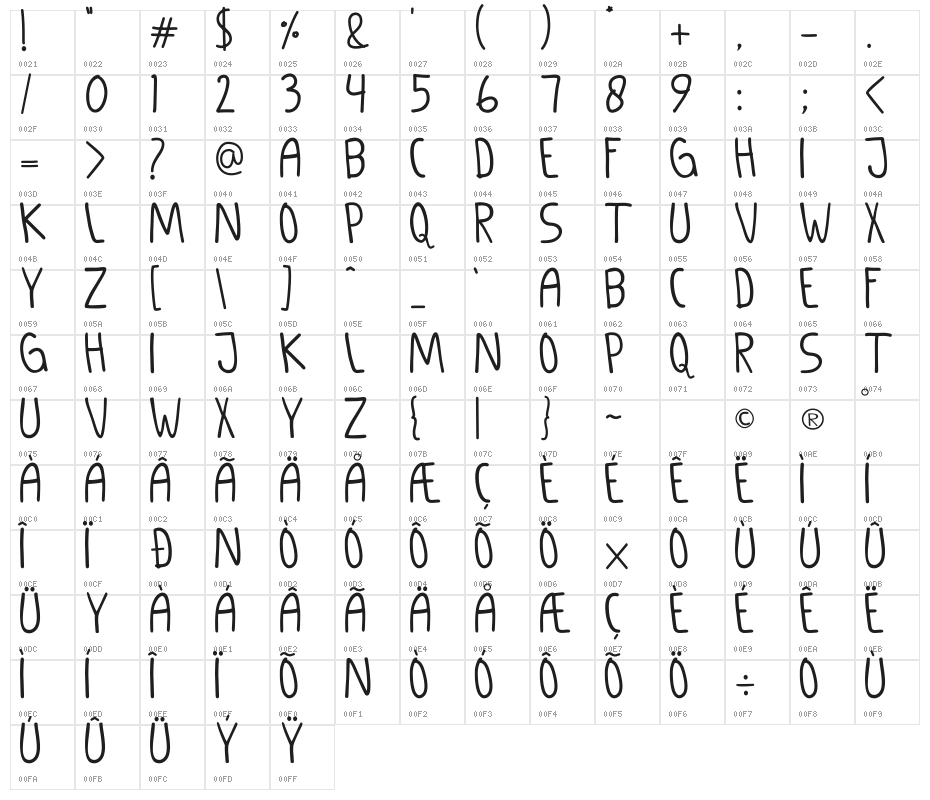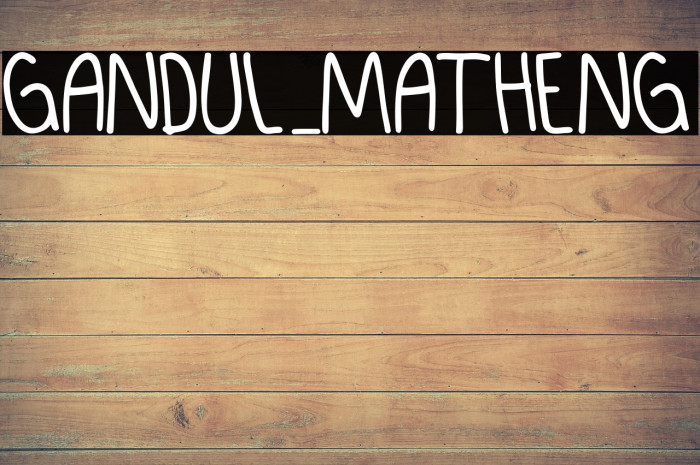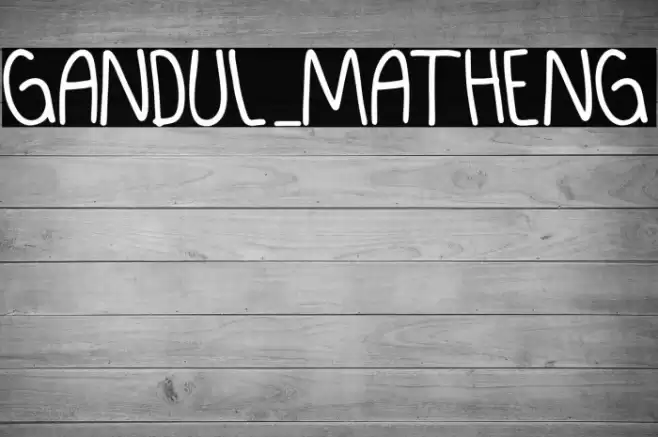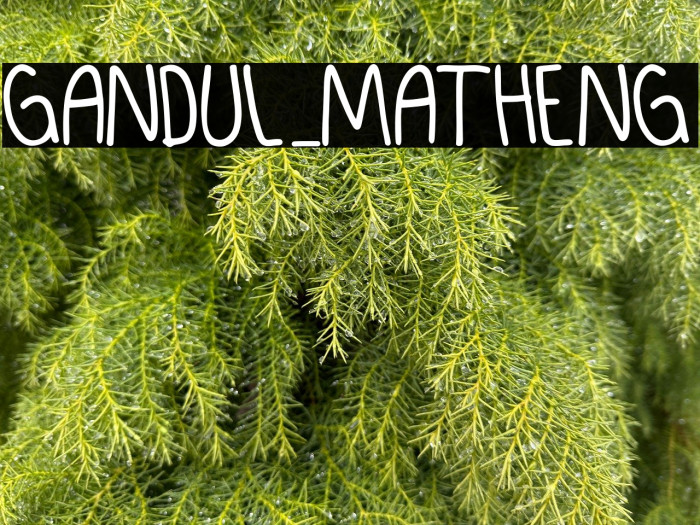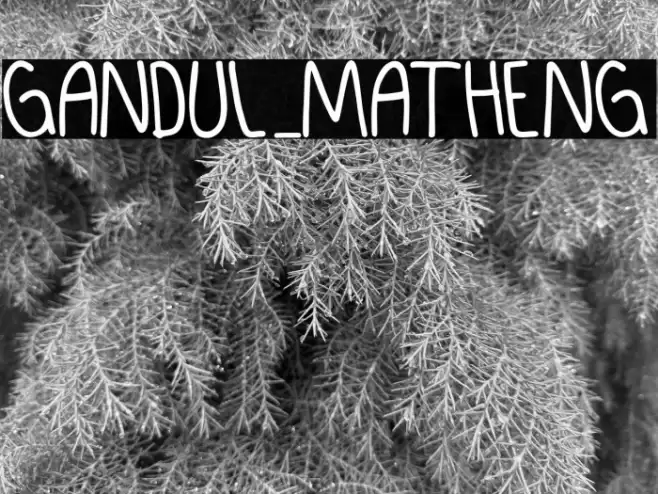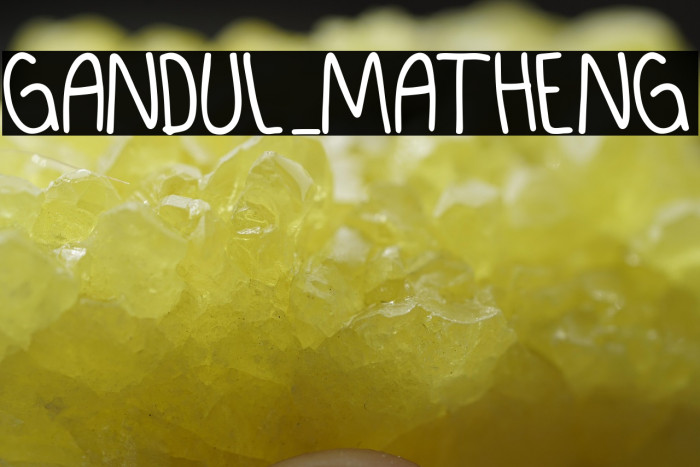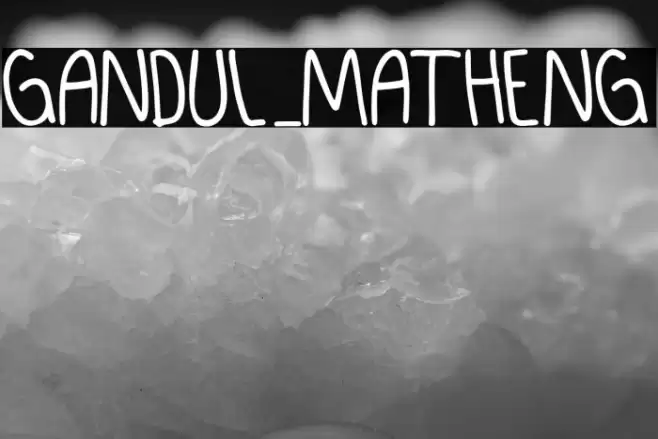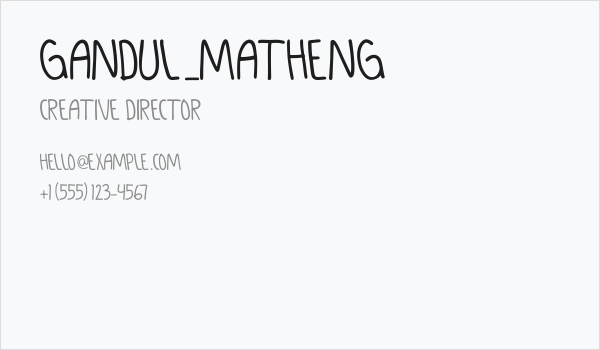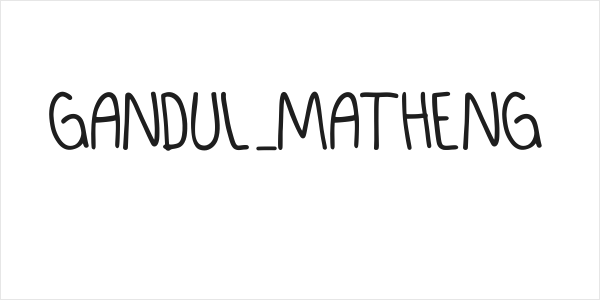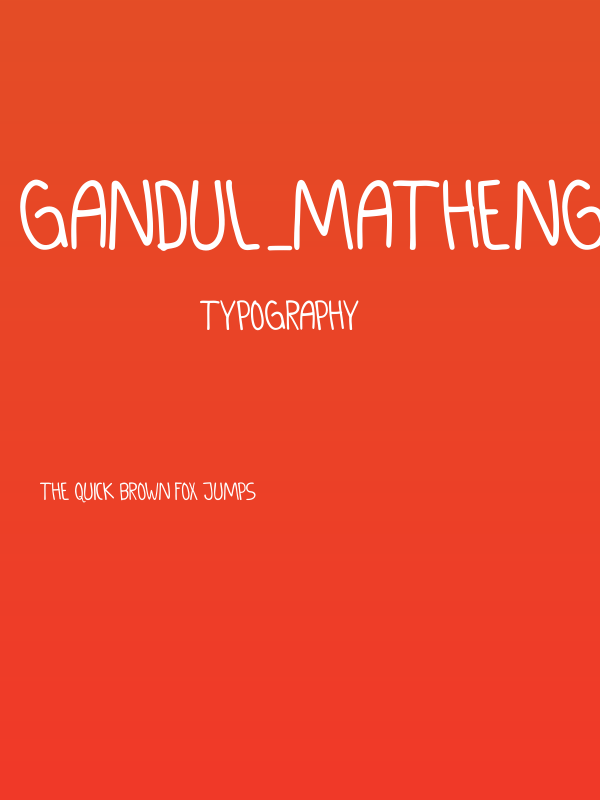
GANDUL_MATHENG Font
GANDUL_MATHENG Description
This font features a playful and casual handwritten style, characterized by its smooth, rounded edges and consistent stroke width. The letters are slightly elongated, giving them a tall and narrow appearance, which adds a touch of elegance to the overall design. The numerals and special characters maintain the same playful aesthetic, ensuring a cohesive look across all characters. This font's informal yet stylish vibe makes it suitable for a variety of creative projects.
| Proposed Projects | Ideal for greeting cards, children's books, casual branding, and social media graphics. |